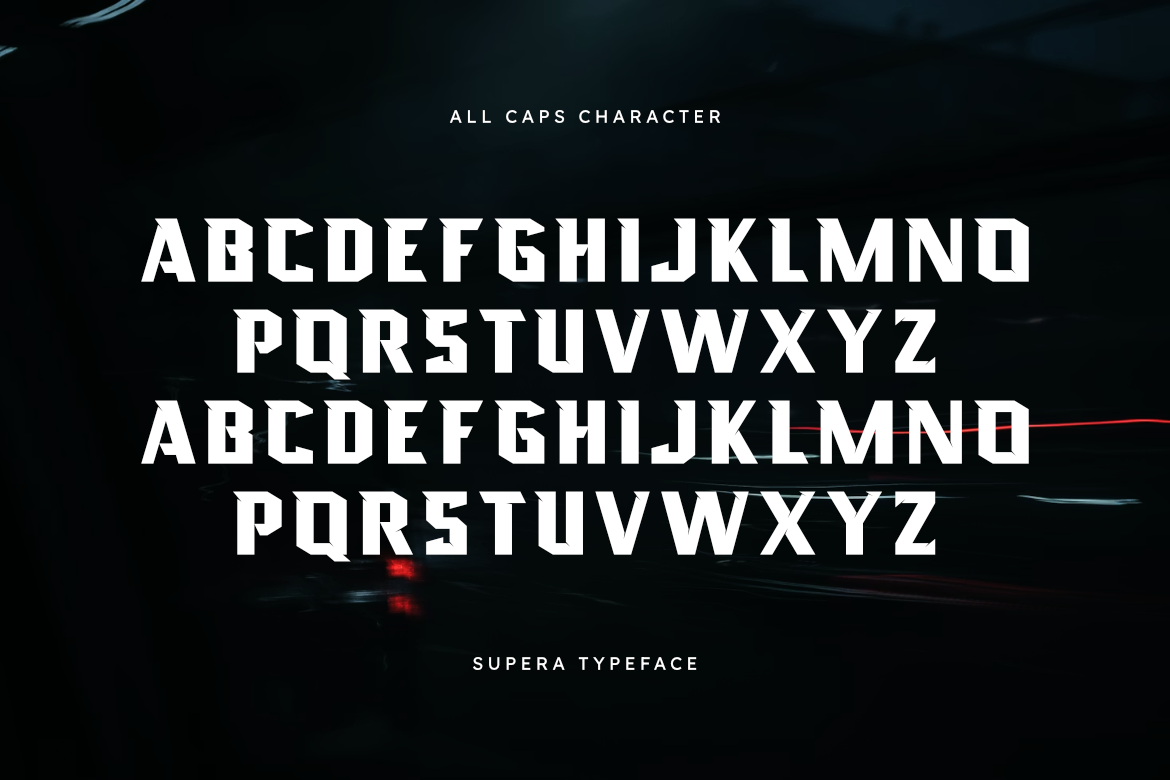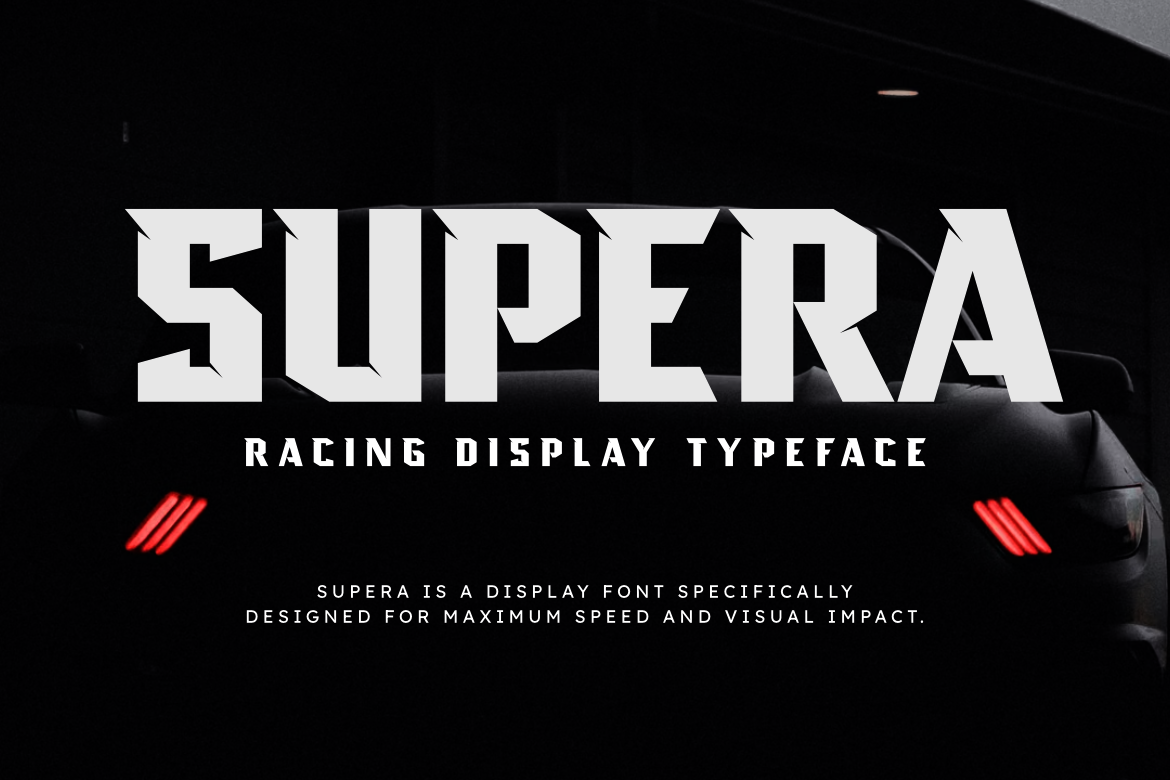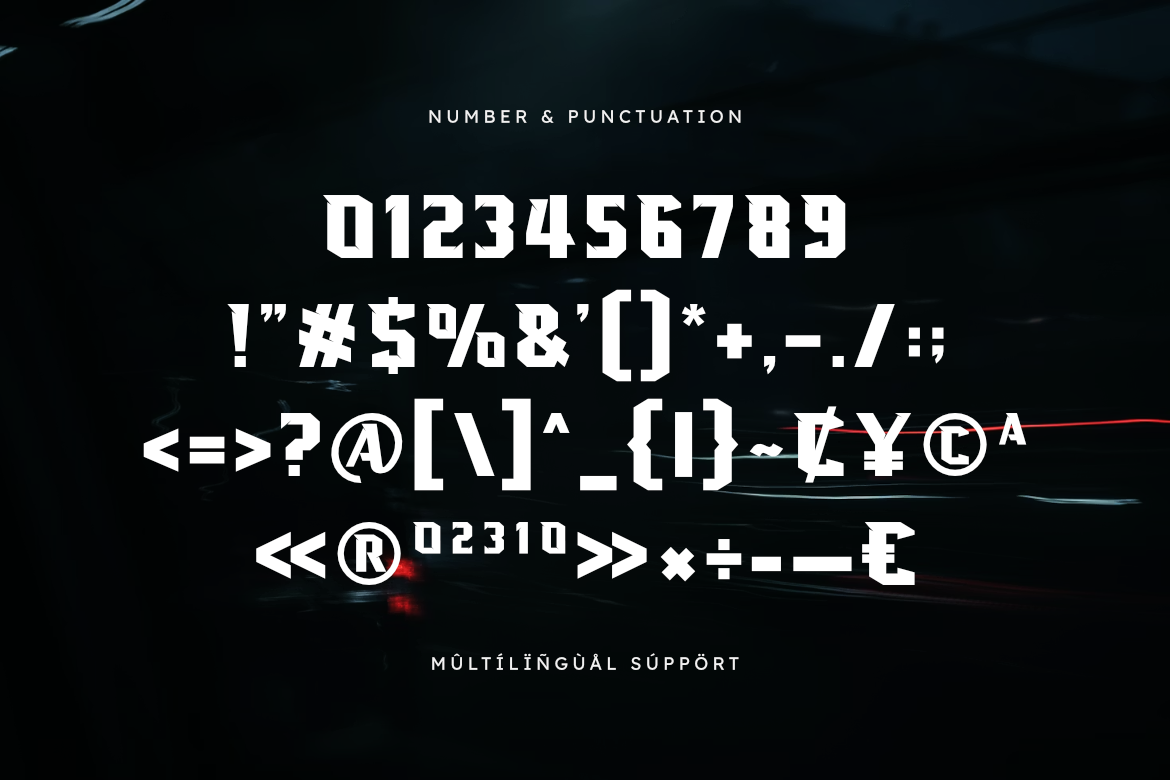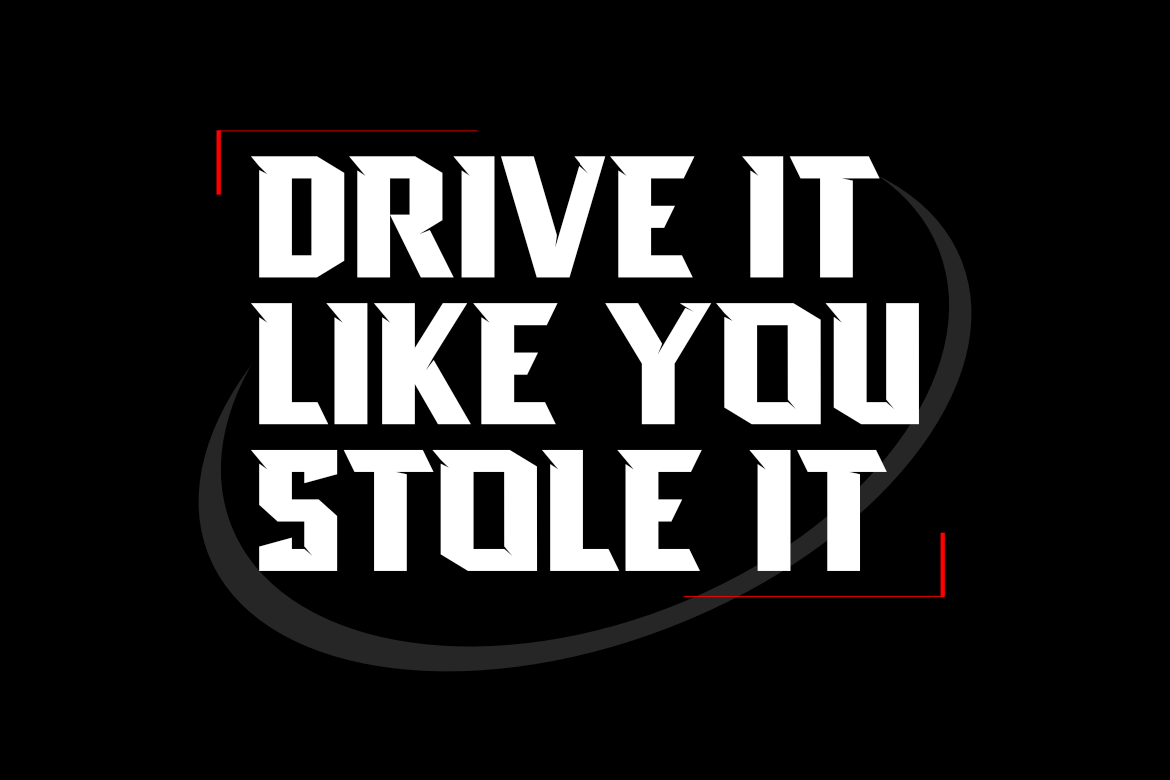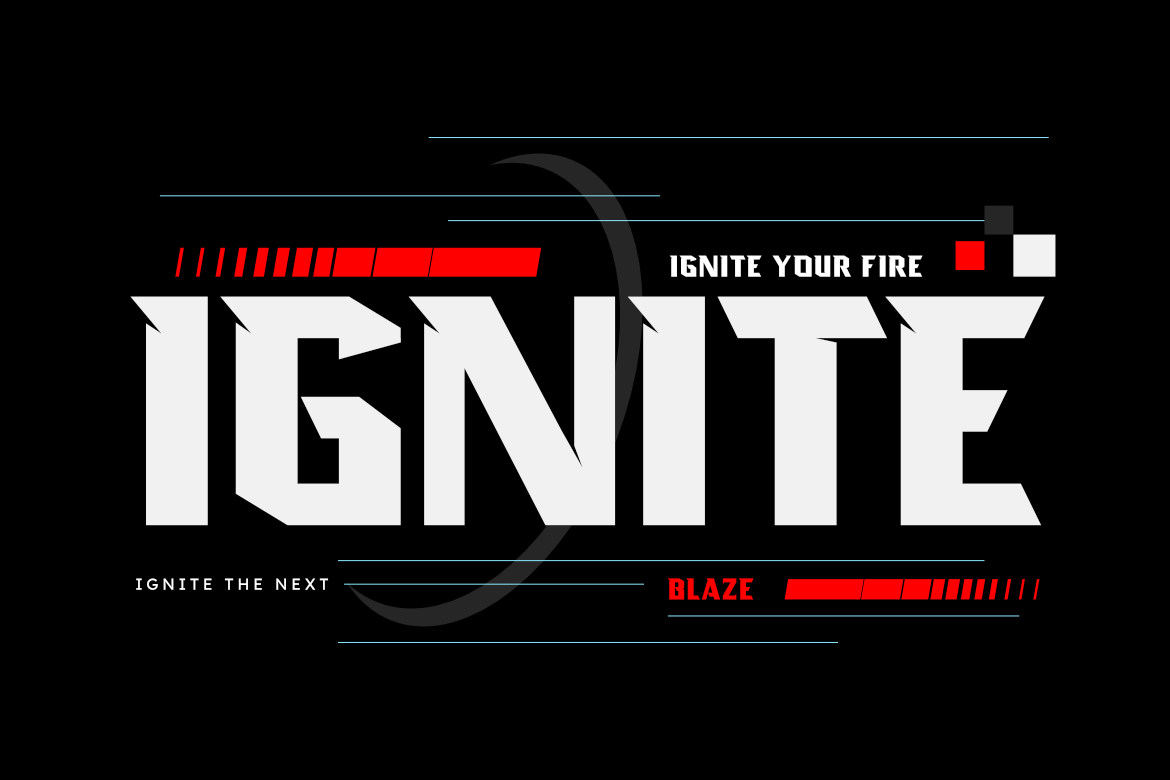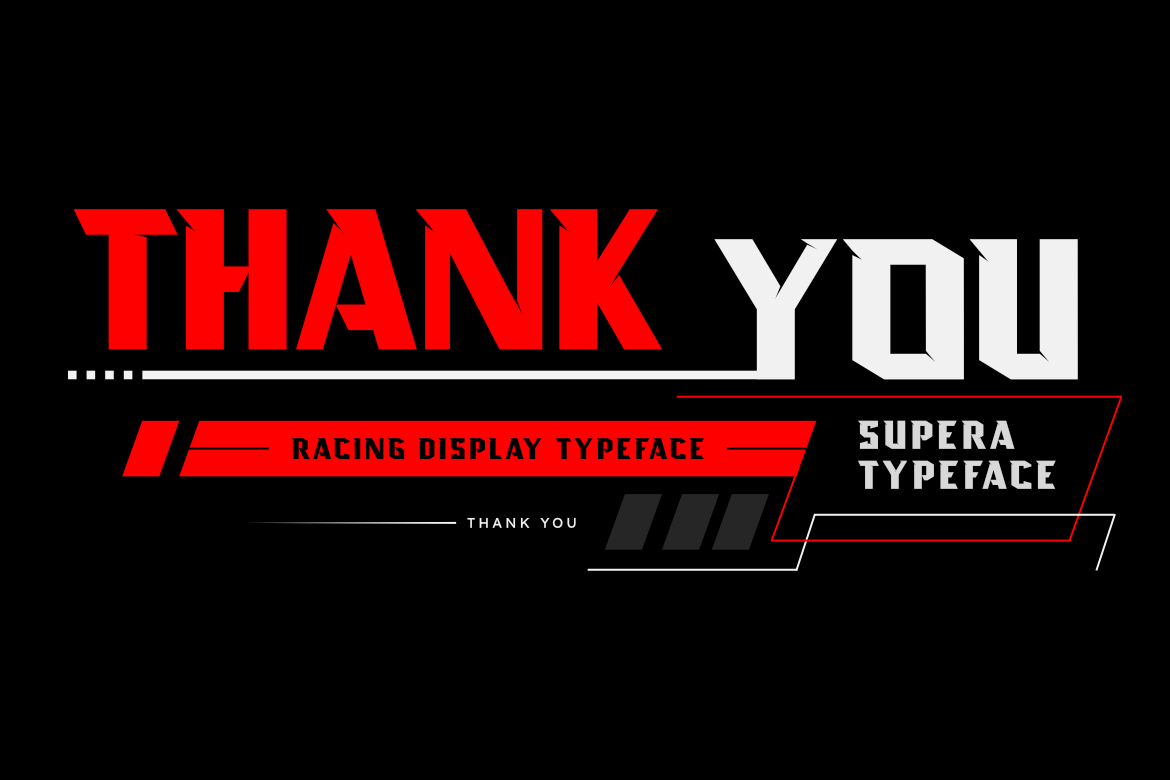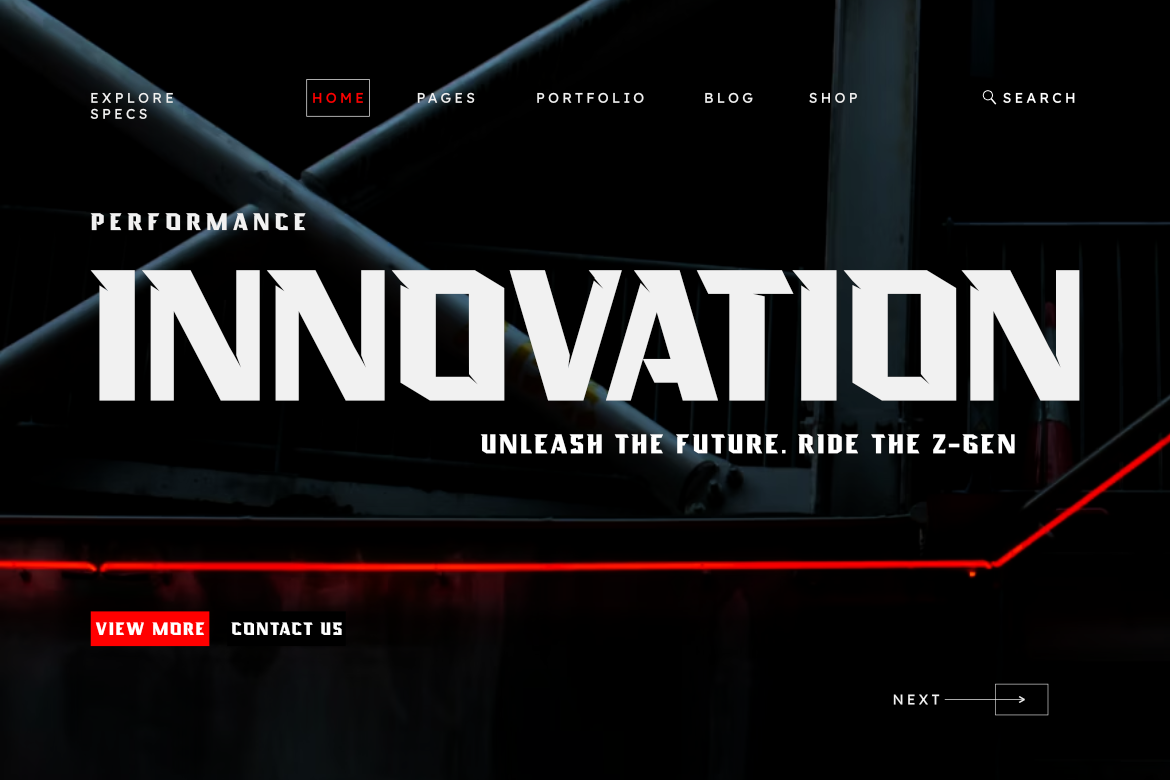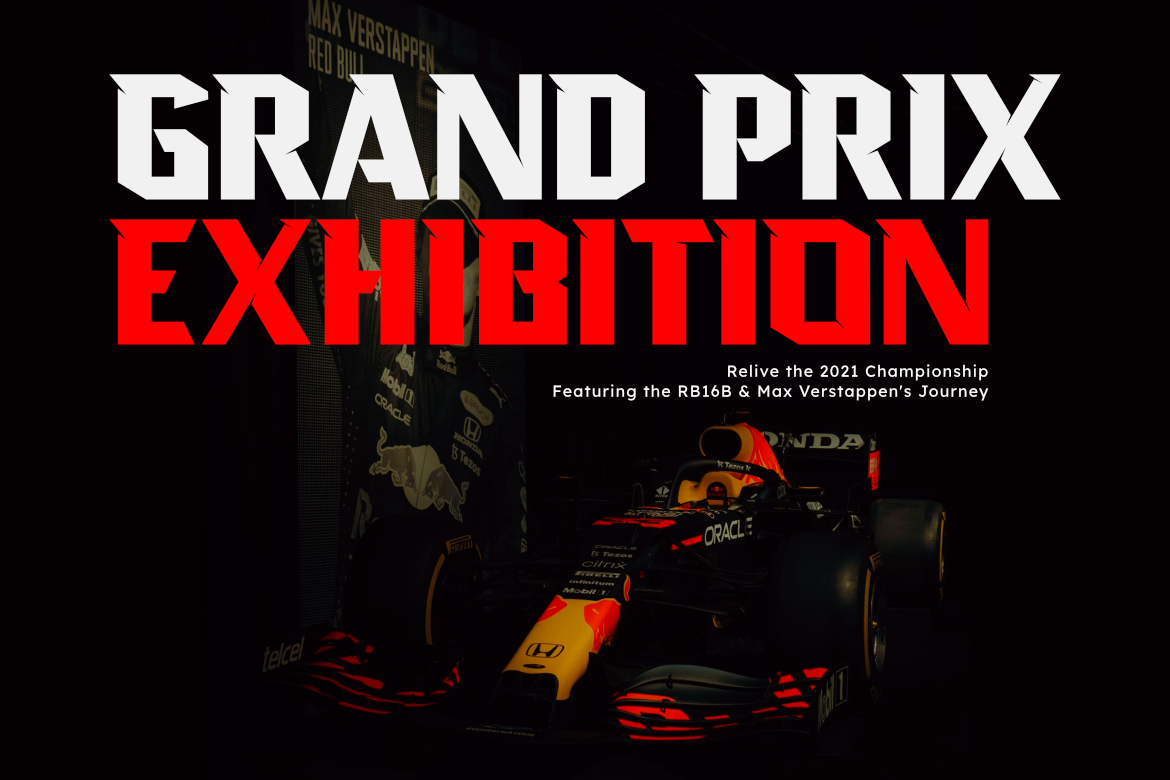
Supera - Racing Sport Font for Racing Sport Brand Identity
Supera is a racing display typeface inspired by high-speed machines, sharp aerodynamic forms, and the bold aesthetics of modern motorsport. With aggressive angles, blocky cuts, and strong futuristic styling, this font is built to deliver maximum impact in any design that demands power and speed.
Perfect for racing posters, automotive branding, esport logos, game titles, merchandise, YouTube thumbnails, and any project that needs a fast, intense, and energetic visual identity. Supera brings performance-driven typography to your toolkit — loud, fearless, and ready to dominate the track.
Features
- All Caps Characters
- Numbers & Punctuation
- Strong racing display style
- Multilingual support
Perfect For
- Racing posters & banners
- Esport & gaming titles
- Automotive branding
- Speed-themed merch
- YouTube covers & thumbnails
- Tech & sport design projects